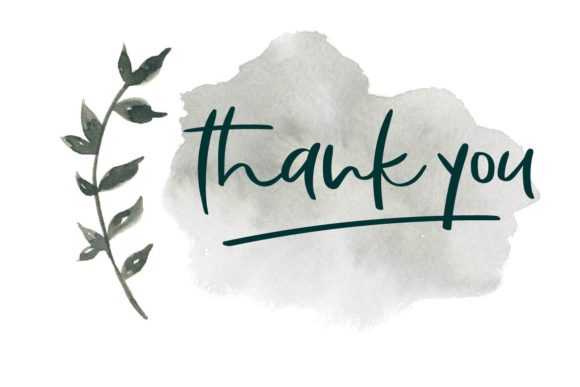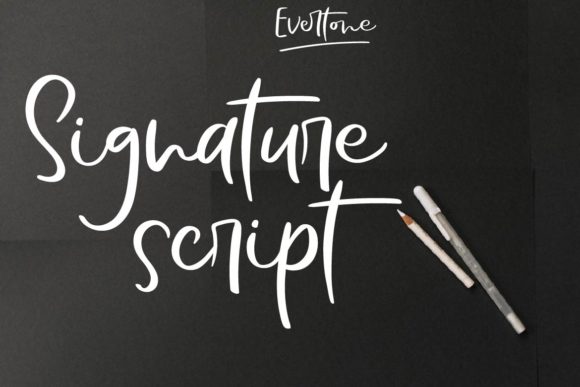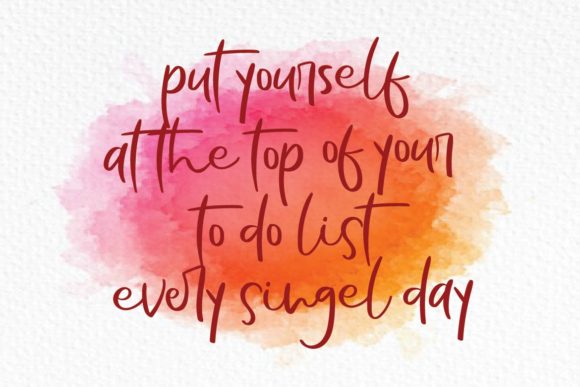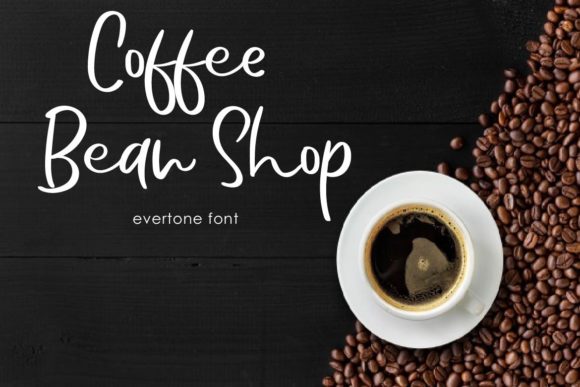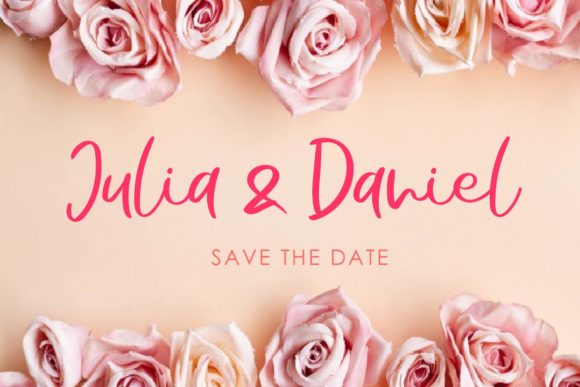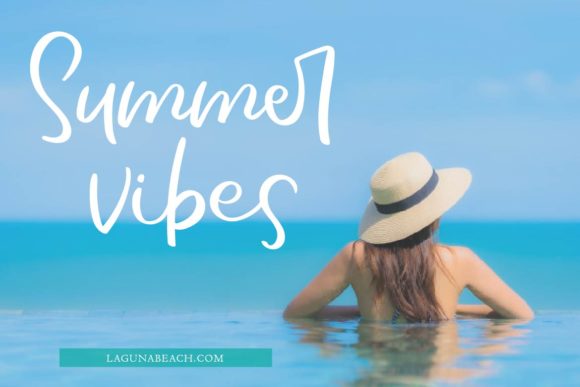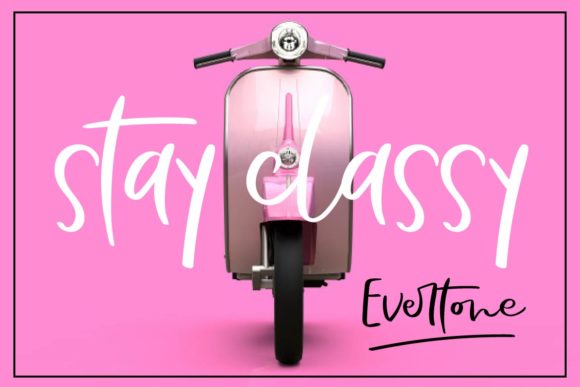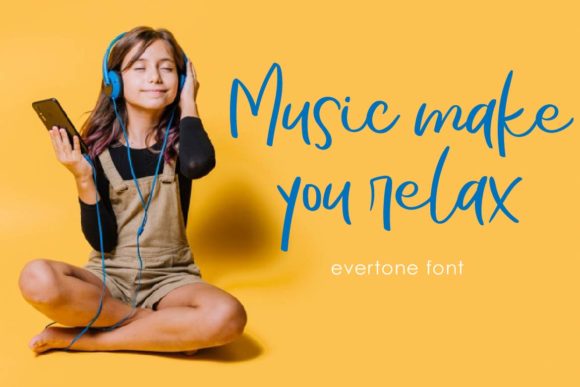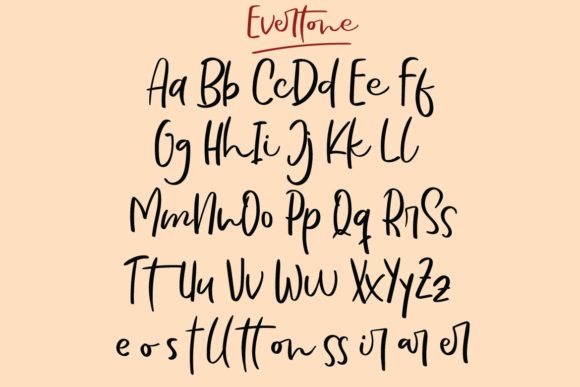
Evertone Font
About Evertone Font
“Evertone” is a captivating and exquisite handwritten font that exudes elegance and sophistication. Designed with masterful craftsmanship, this font strikes a perfect balance between classic calligraphic influences and a contemporary, fresh appeal. Here are the features that make “Evertone” a true favorite for a wide range of design projects:
Timeless Elegance: “Evertone” captures the essence of timeless elegance, making it a perfect choice for various applications such as wedding invitations, formal events, high-end branding, and luxurious product packaging. Its graceful strokes and smooth lines give your designs a touch of refinement and sophistication.
Versatile Application: From wedding invitations to logos, quotes, greeting cards, business cards, and more, “Evertone” seamlessly adapts to a multitude of design projects. Its adaptability makes it suitable for both print and digital media, enhancing the overall aesthetic of your creations.
Classy Calligraphic Influences: The calligraphic influences in “Evertone” add a sense of artistry and craftsmanship to your designs. Each character is carefully crafted to create a harmonious flow, lending an air of prestige to your text.
Contemporary Freshness: Despite its classic influences, “Evertone” maintains a contemporary and fresh feel, making it a versatile choice for modern design trends. It effortlessly blends traditional and modern elements, appealing to a diverse audience.
Legibility and Readability: “Evertone” ensures excellent legibility and readability, making it easy for your audience to engage with your content. Its clear and well-balanced characters allow your message to shine through without distractions.
Sophisticated Alternates: “Evertone” may come with a range of alternative glyphs and swashes, enabling you to create customized and unique compositions. This feature adds versatility and empowers you to craft personalized designs that align perfectly with your creative vision.
Expressive Capitals: The uppercase letters in “Evertone” boast an expressive and artistic quality, perfect for emphasizing titles or initials in your designs. They add a touch of grandeur and make a bold statement.
Distinctive Signature: When used as a signature font, “Evertone” imparts a personal and luxurious touch to your digital or print documents. It elevates the overall perception of professionalism and quality.
In summary, “Evertone” is a font that combines timeless elegance, contemporary freshness, and remarkable versatility. Its calligraphic influences, sophisticated design, and expressive elements make it a true favorite for designers and creators seeking to elevate their projects to the highest levels. Whether you’re working on an upscale wedding invitation or a high-end brand logo, “Evertone” is a font that delivers both visual impact and a touch of refined beauty, making it a cherished asset in any designer’s toolkit.